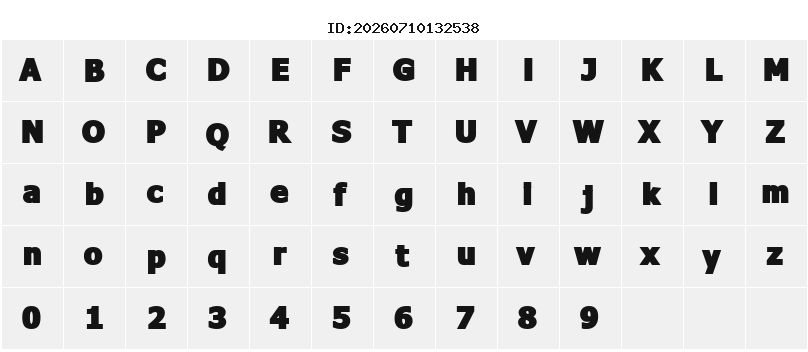
Fava Preview
• Font Name: Fava
• Full Font Name: Fava Black
• Designer: Themnific
About Fava.ttf
Fava.ttf is a modern, elegant sans-serif font designed for ultimate readability and visual harmony. Perfect for branding, headlines, web design, and print materials.